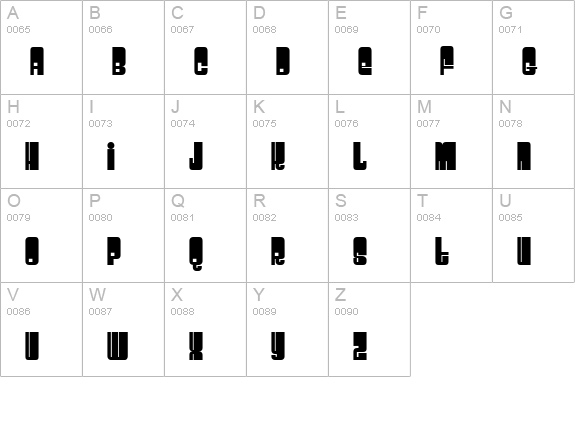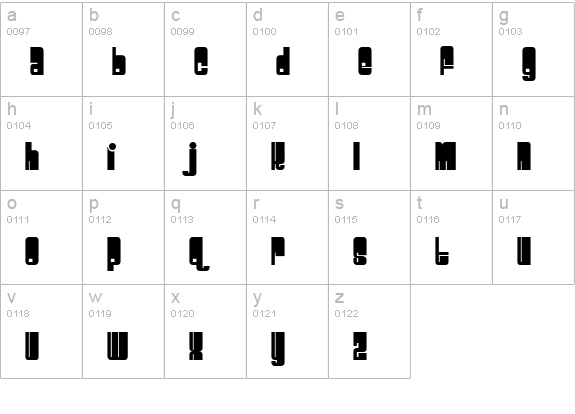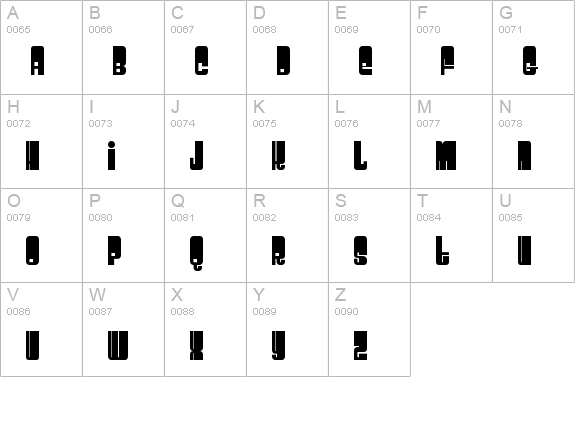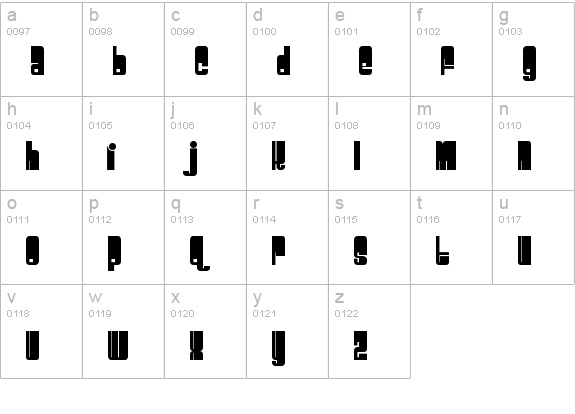
Spacebeach Font Details
Introducing Spacebeach, a stunningly futuristic font that takes you on an intergalactic journey through the cosmos right from the comfort of your design projects. With its sleek and modern lines, Spacebeach captures the essence of outer space, blending science fiction with a touch of elegance. This unique typeface is perfect for adding a touch of otherworldly charm to your designs. Whether you're creating a poster for a sci-fi movie, designing a cutting-edge website, or crafting a logo for a tech startup, Spacebeach will bring a sense of cosmic wonder to your work. But what sets Spacebeach apart from other fonts is that it's not only visually captivating, but it's also free! That's right, you can download this extraordinary font at absolutely no cost from FontsMarket.com. We believe that design should be accessible to all, and Spacebeach is our way of bringing a taste of the cosmos to everyone, no matter their budget. Imagine the possibilities with Spacebeach. Let your creativity soar as you explore the vast expanse of this font's versatility. With multiple weights and styles to choose from, you can customize your designs to match your vision perfectly. From bold headlines to delicate lettering, Spacebeach adapts effortlessly to any project, allowing you to create truly out-of-this-world designs. So why wait? Embark on a design adventure and let Spacebeach transport you to a world of infinite possibilities. Download this captivating font for free at FontsMarket.com and unleash the full potential of your imagination. Get ready to leave Earth behind and join us on an interstellar journey with Spacebeach!